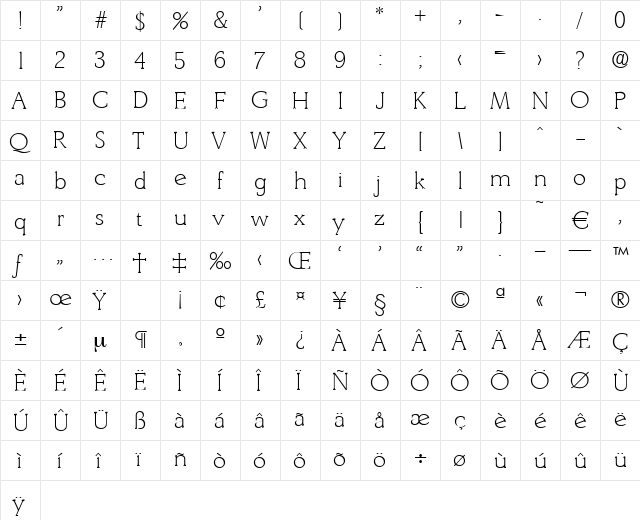
Derringer-Xlight Regular
Design Context for Derringer-Xlight Typeface
Derringer-Xlight offers clean, dependable letterforms without strong stylistic allegiance, making it a practical choice for designers who need flexibility. Its slender proportions lend an understated elegance to any composition.